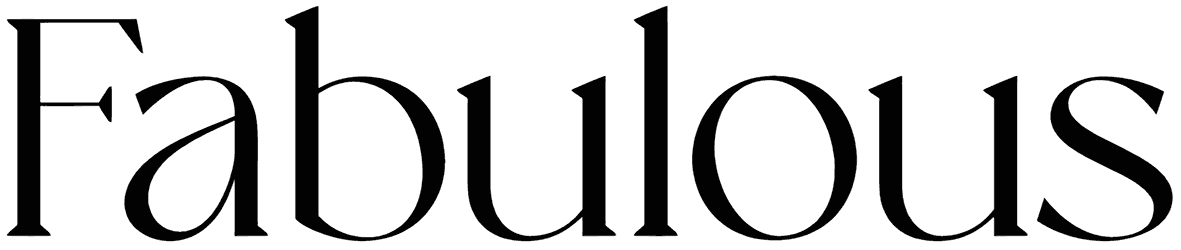
NT Fabulous Font
NT Fabulous font makes a classic and timeless look perfect for conveying a sense of elegance. This serif font instills a sense of gravity that can be seen in prominent museums.
Each letter gives an atmosphere of lasting elegance to the words on the screen with both styles. So whether you want to create a luxurious logo, create a beautiful invitation, or publish a lovely magazine, keep NT Fabulous in the collection to add value and credibility to your brand.
NT Fabulous is a new serif font.